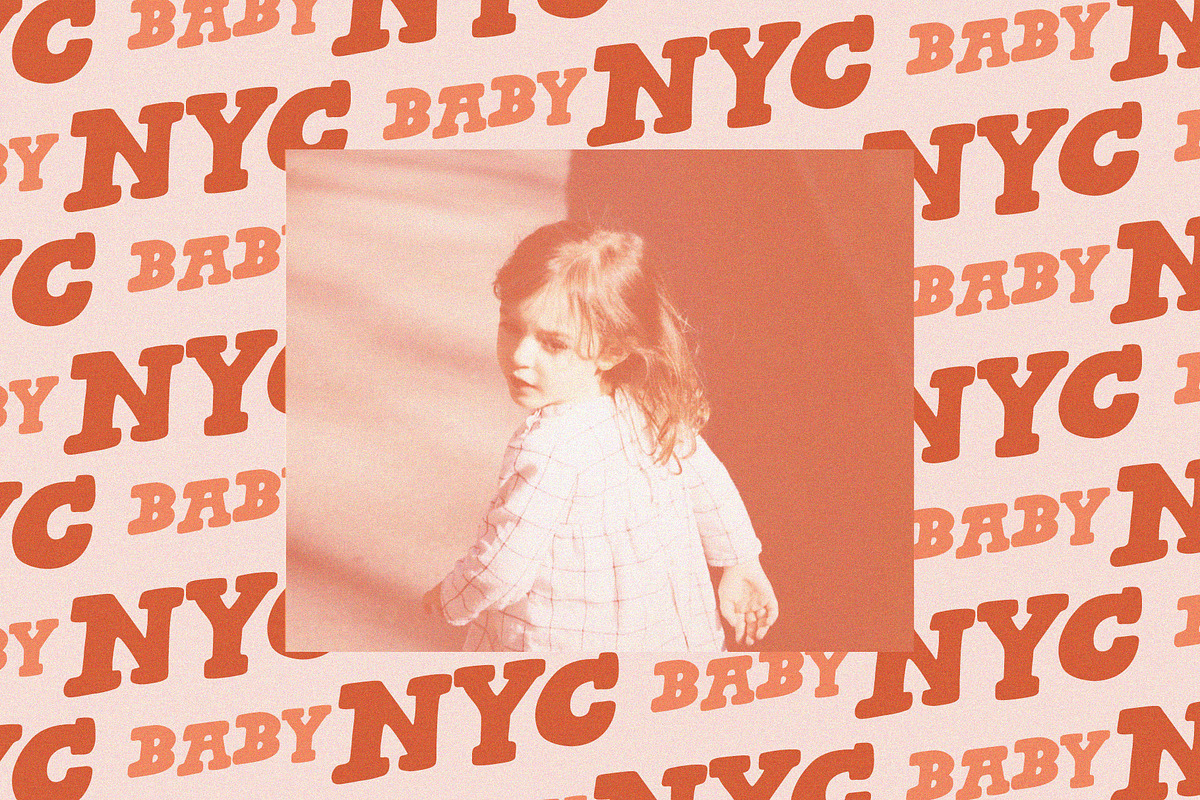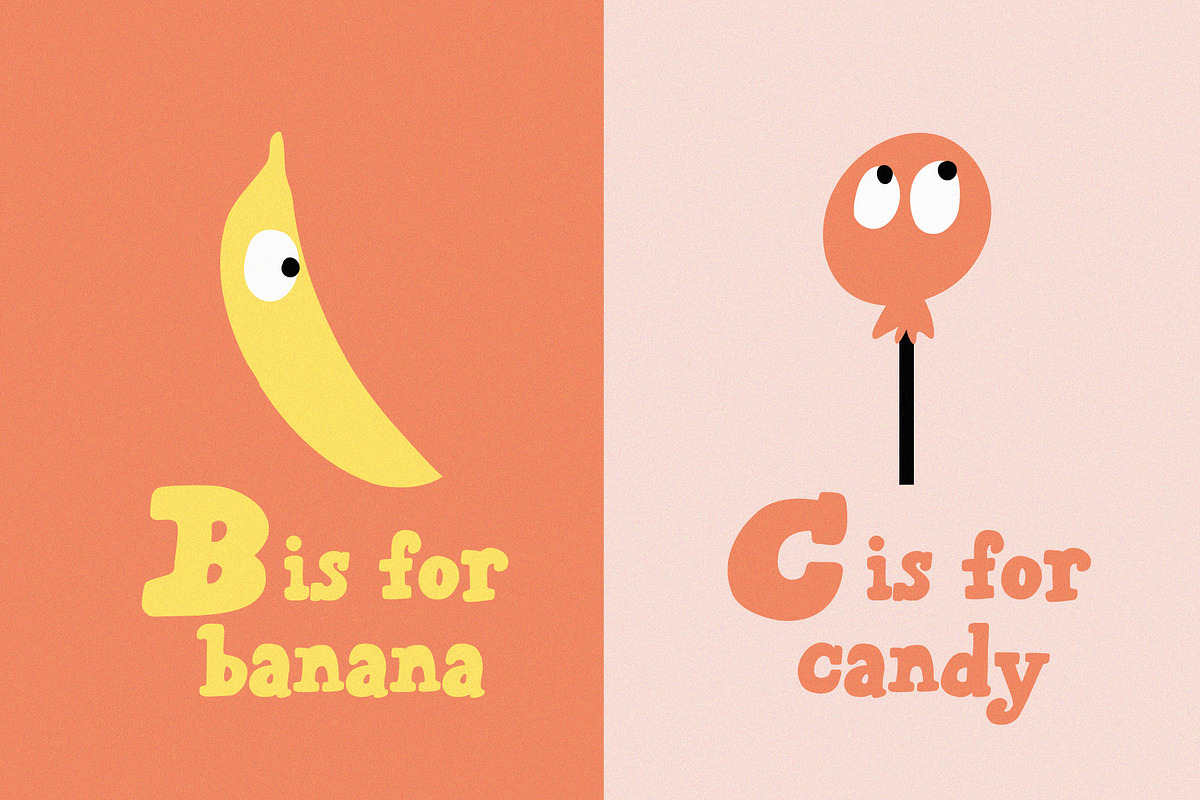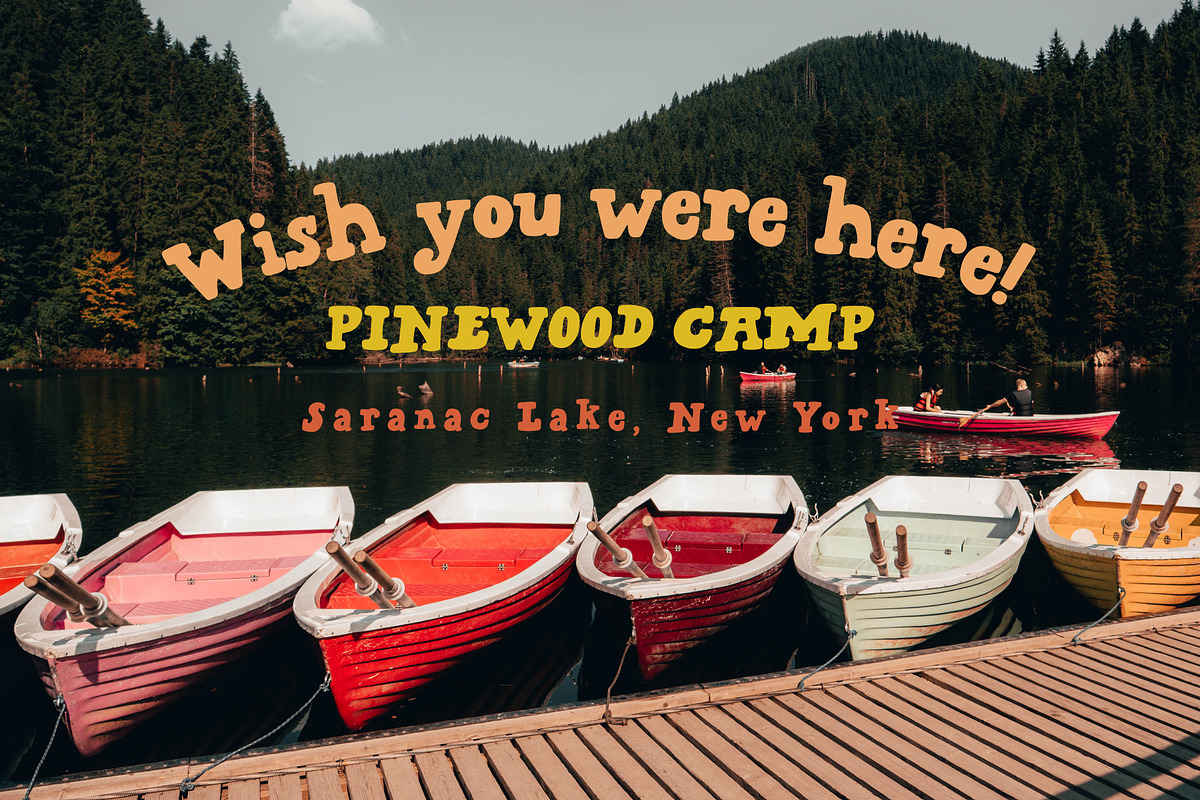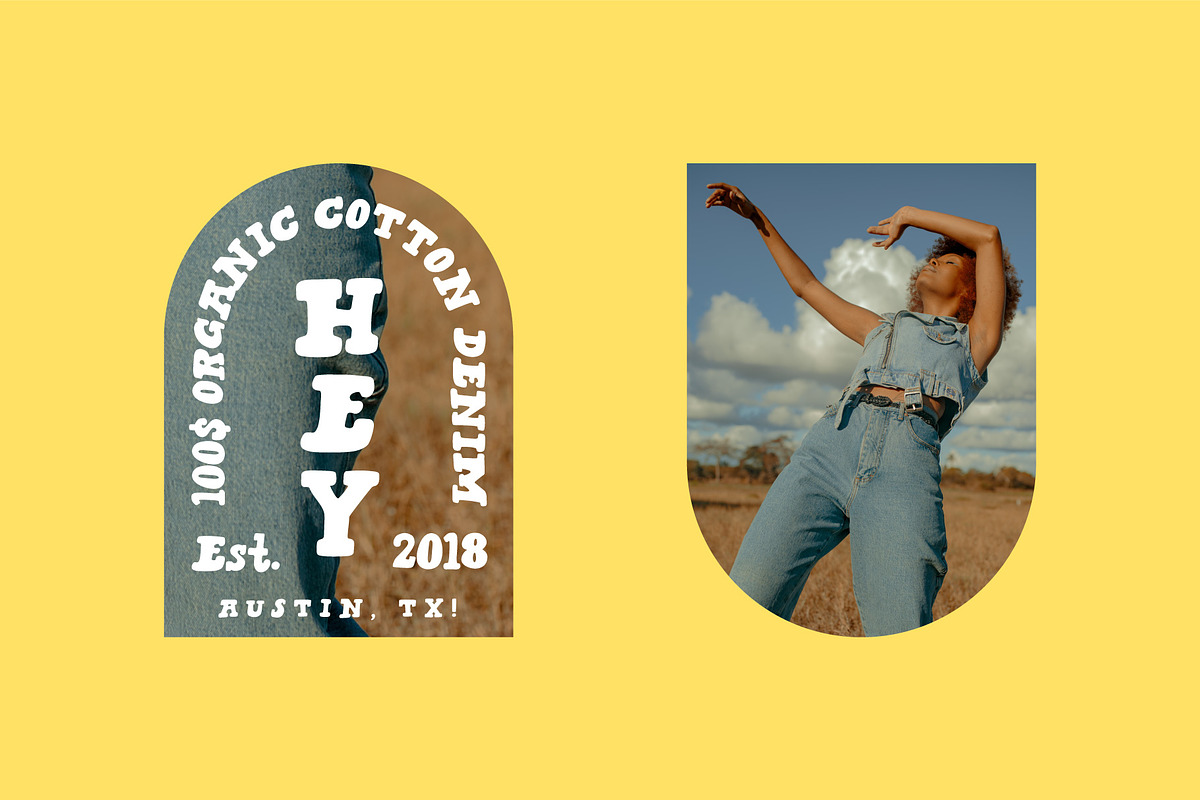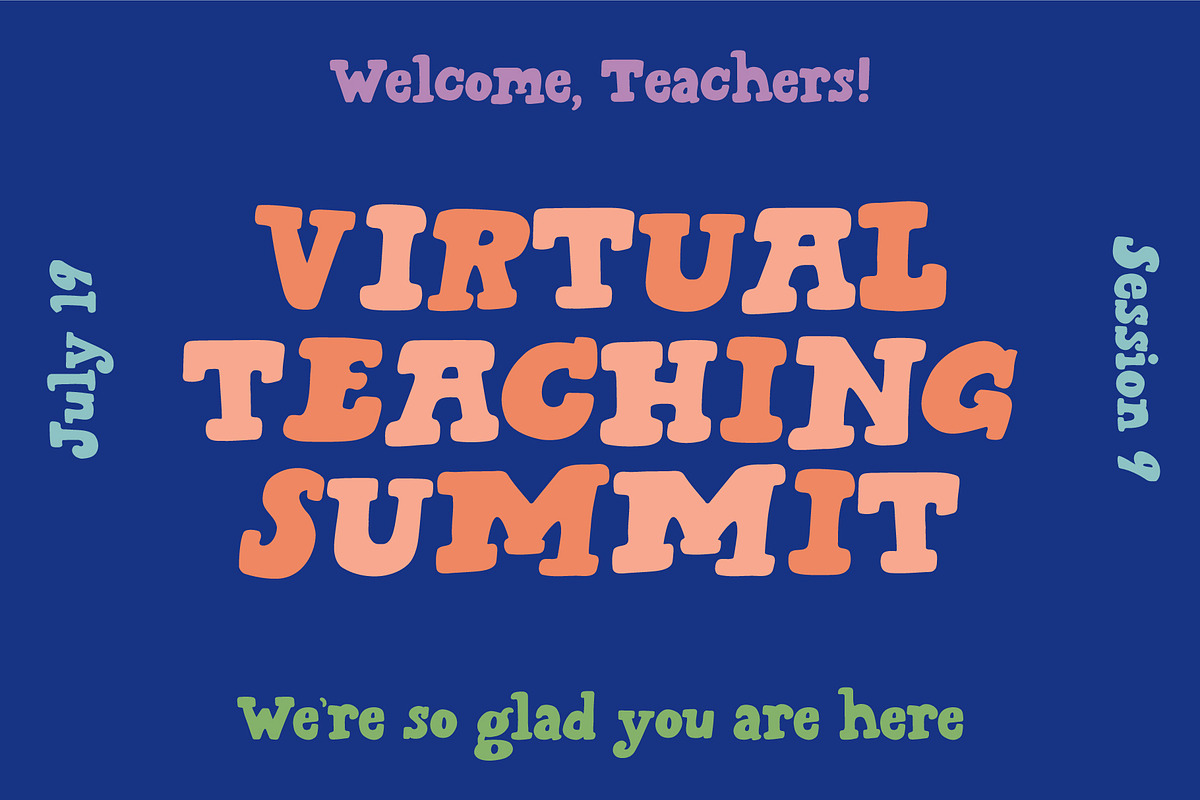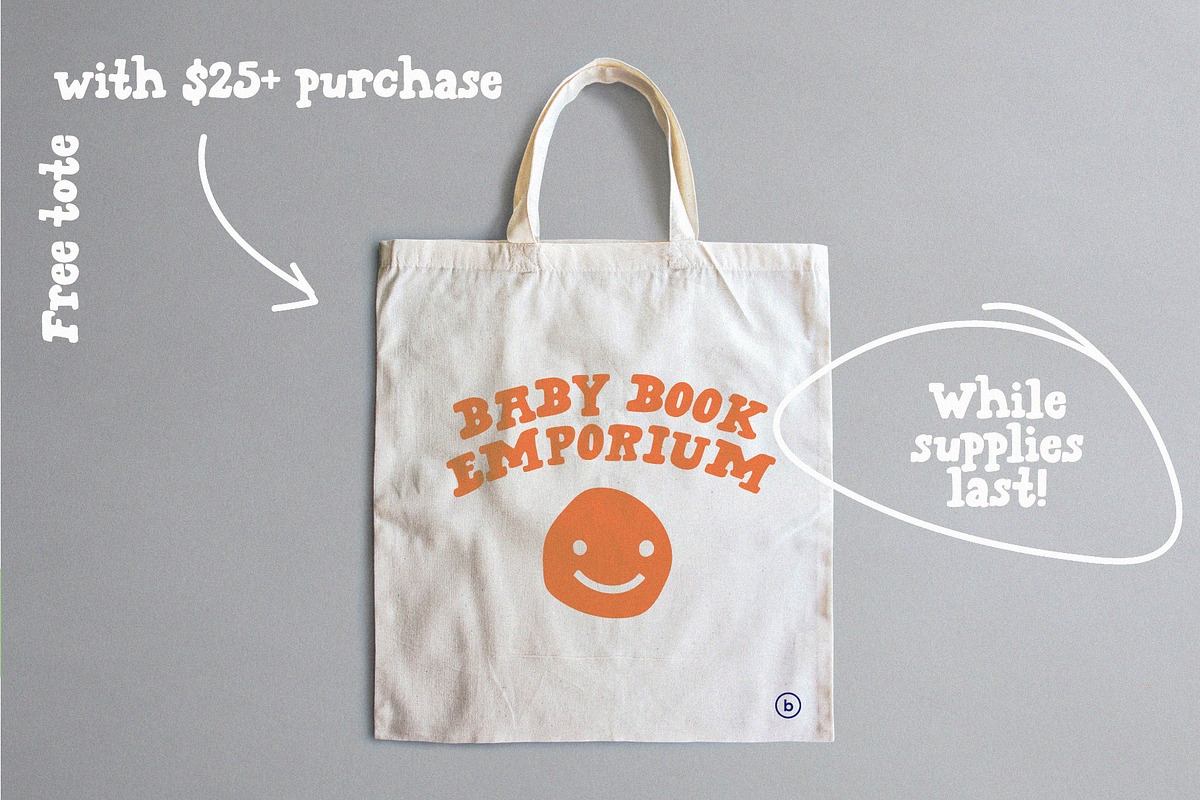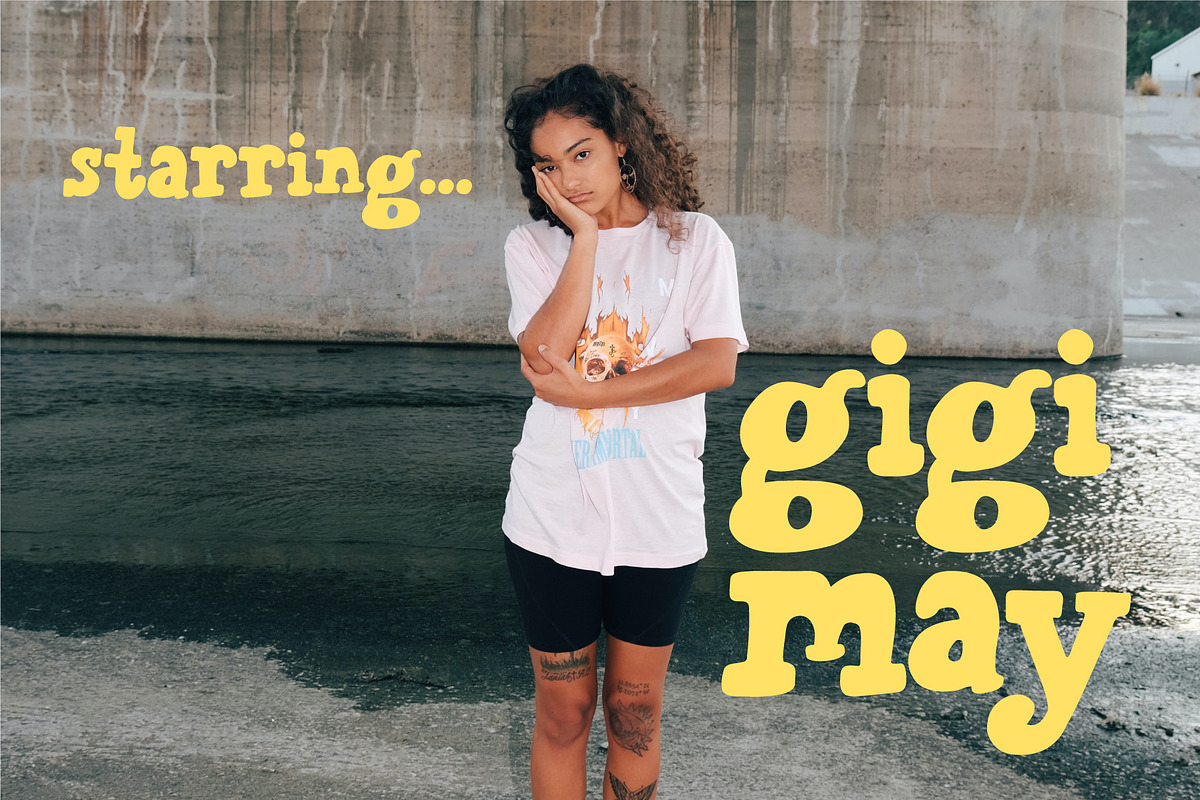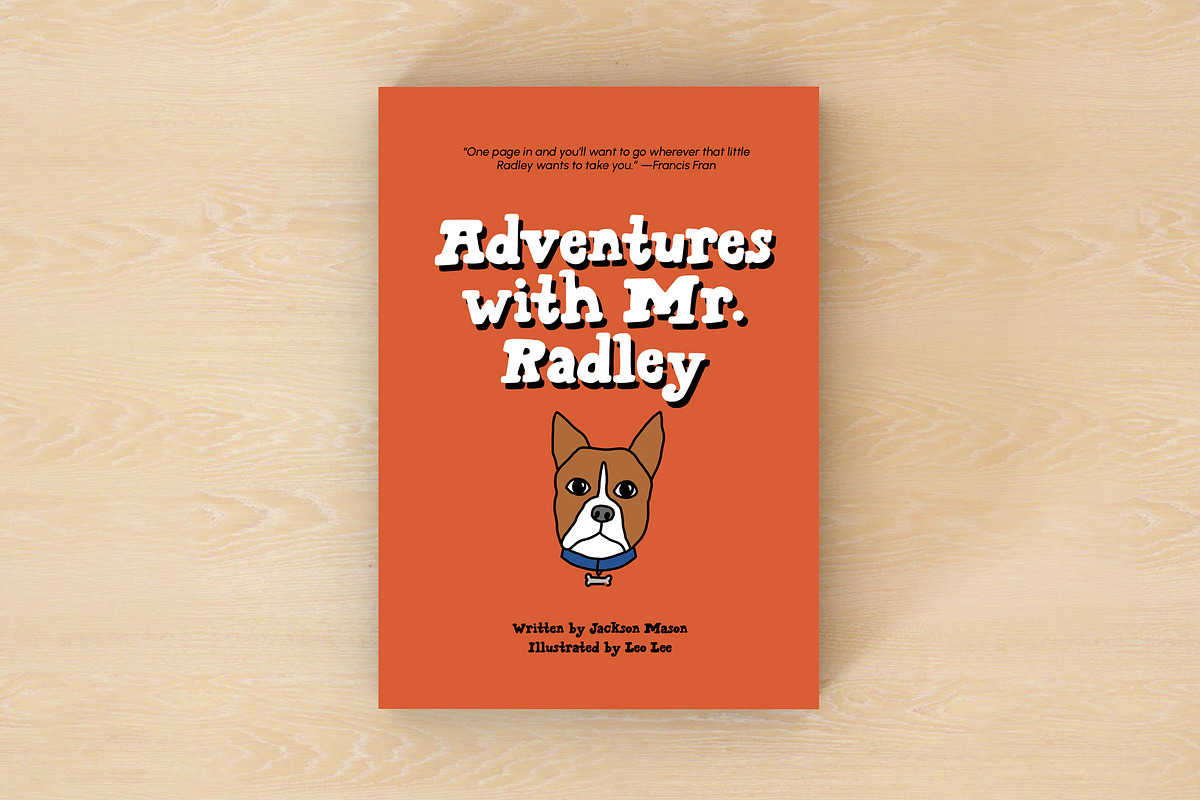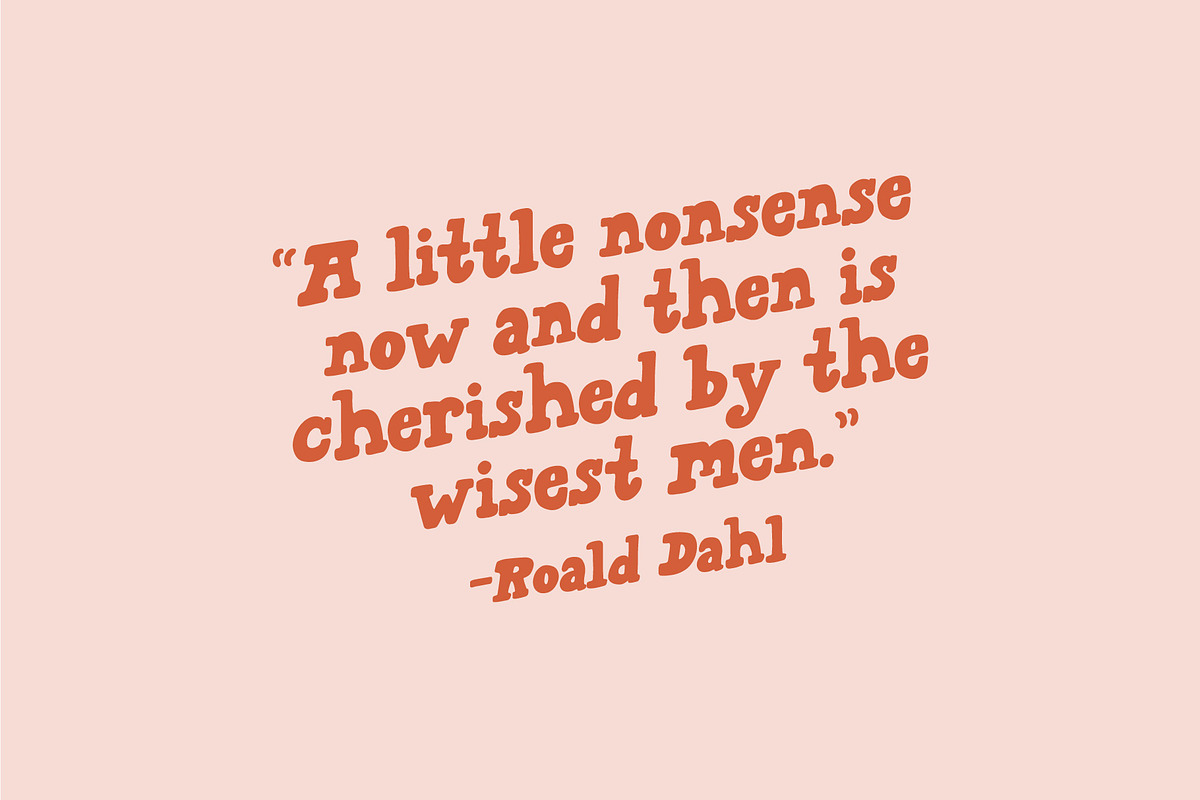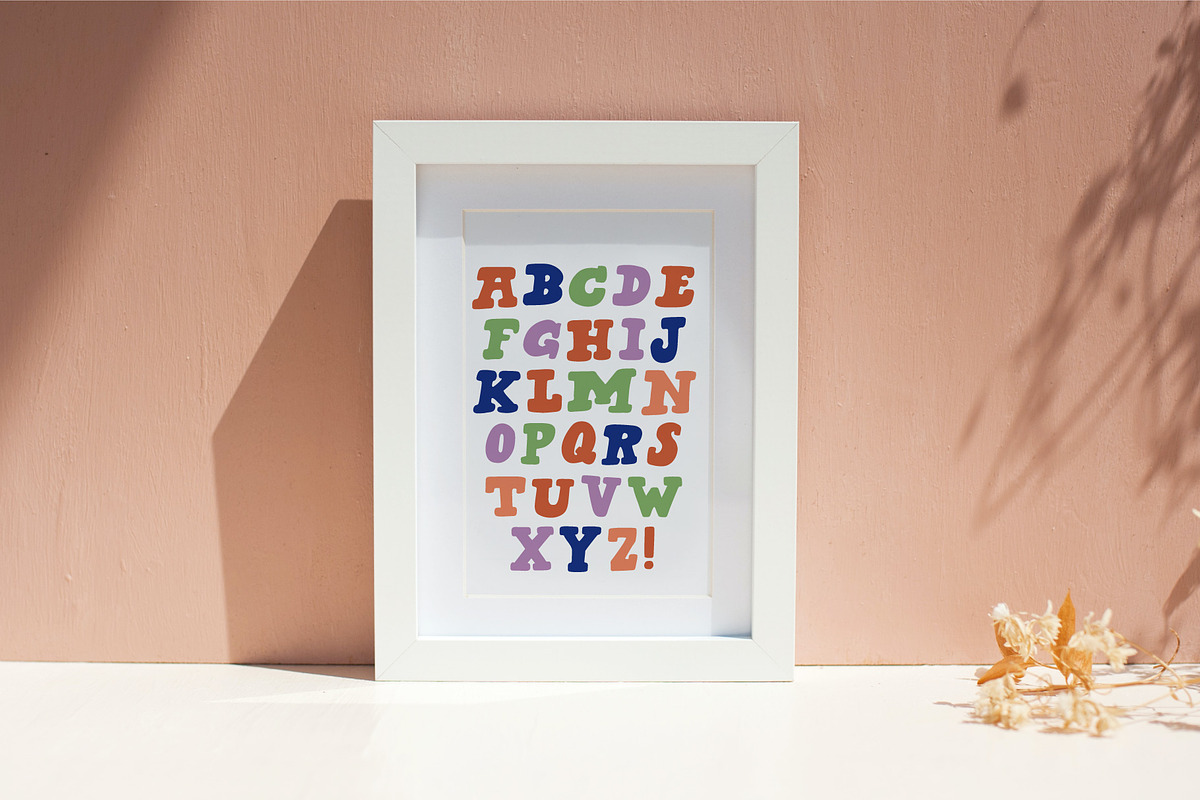
Gigi May • Kids' Bubble Serif Font
Gigi May is a delightfully wonky serif bubble font. It pumps the playfulness into the serif. It's awesome for children's art (or the young at heart). Gigi May is especially useful for headers and logos, as well as subtitles, children's books, indie branding, Instagram announcements, web banners and more.